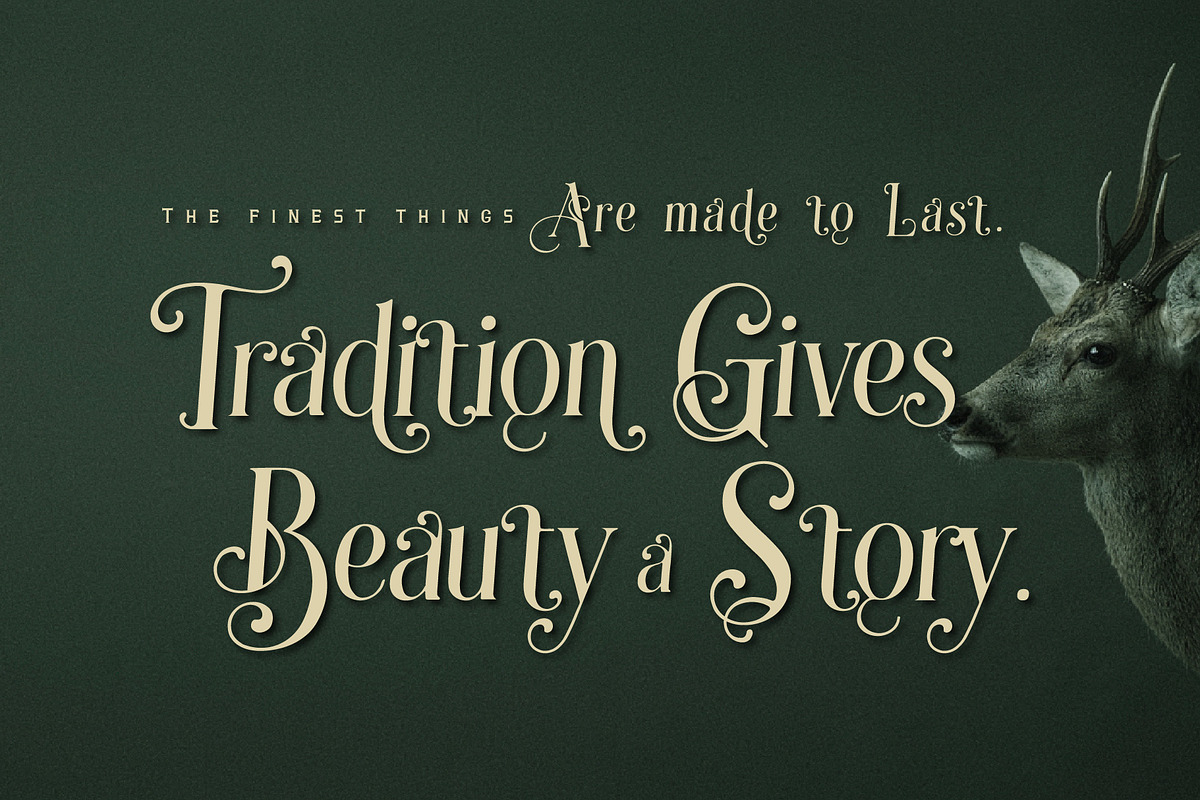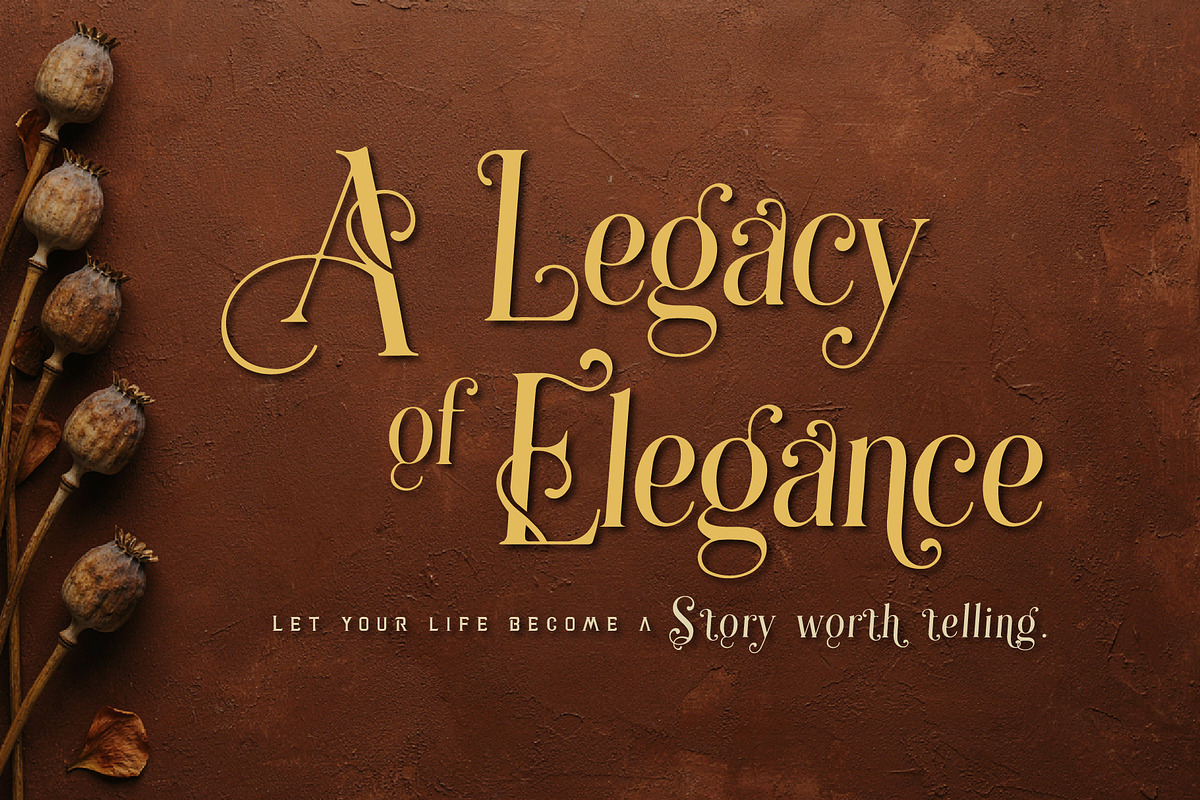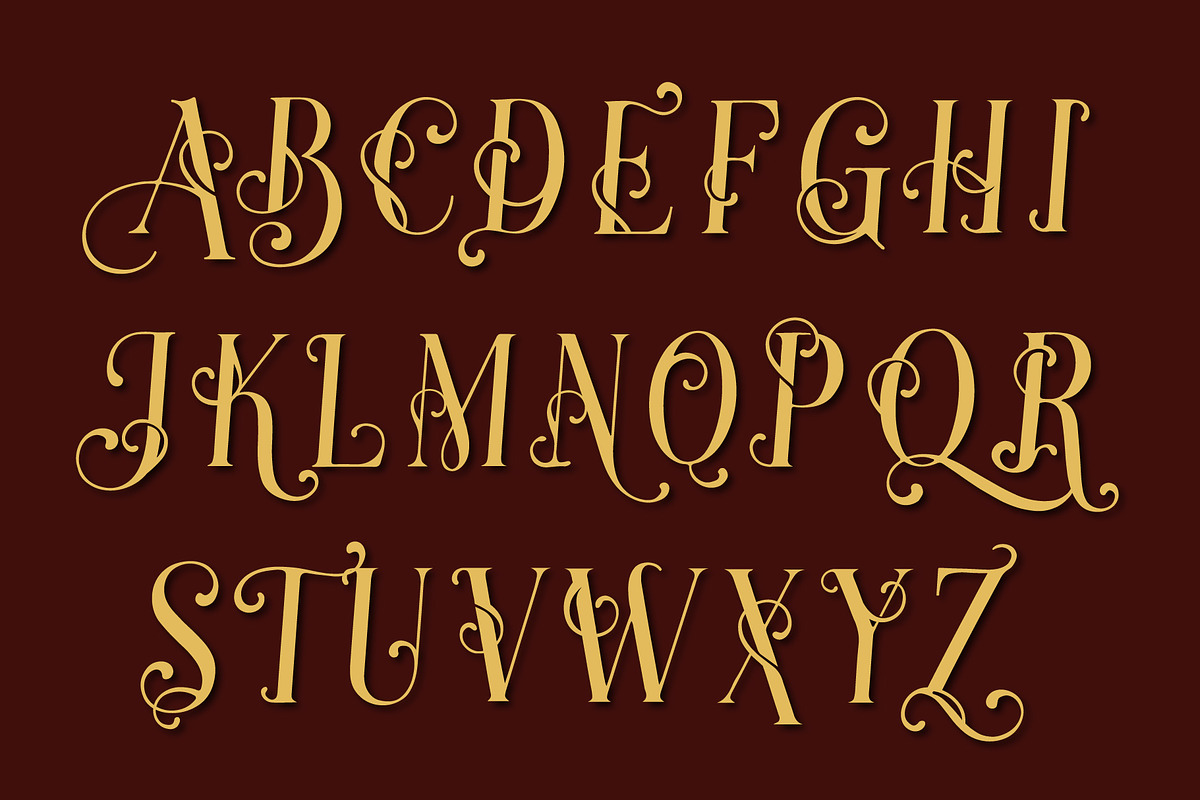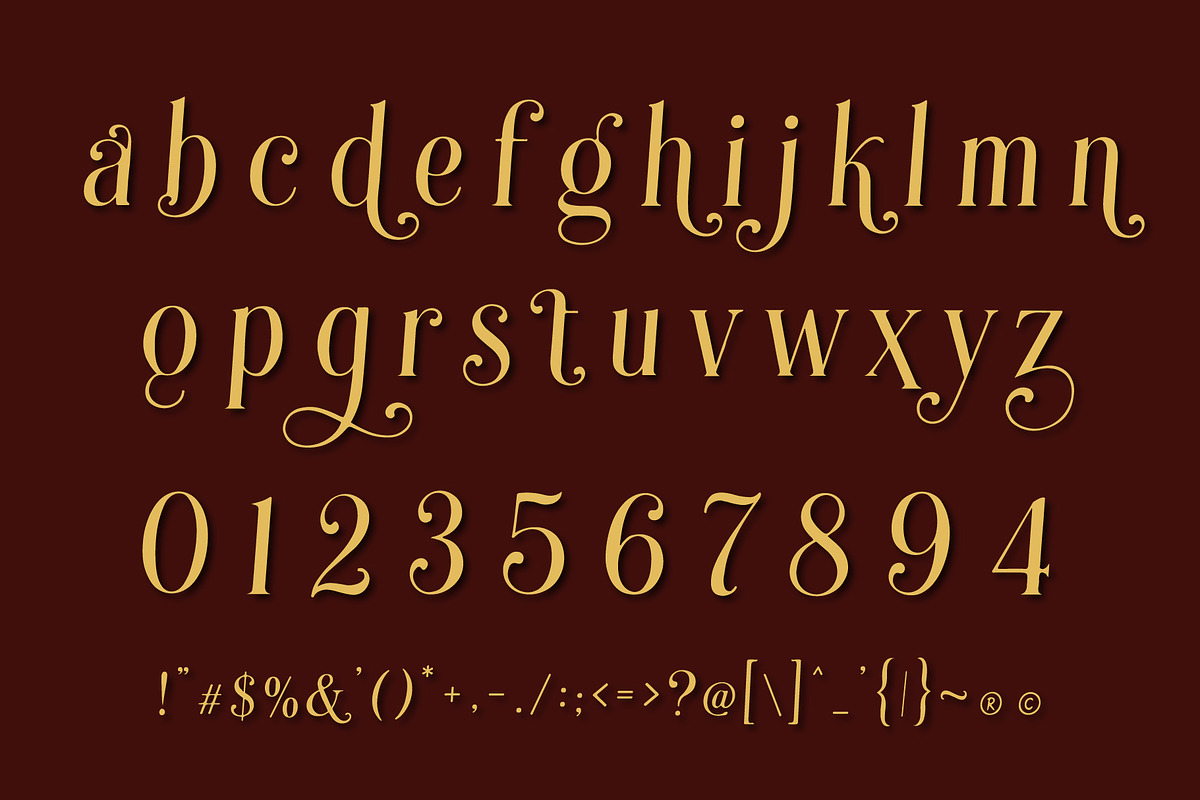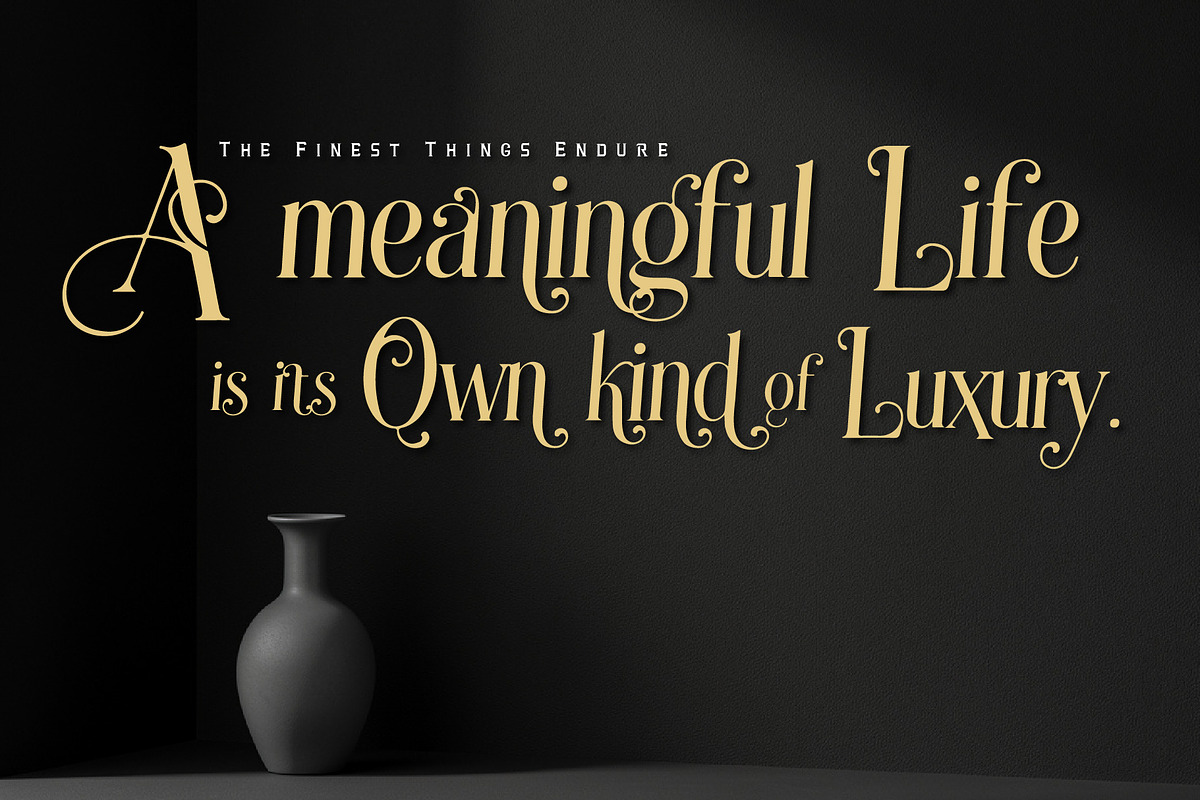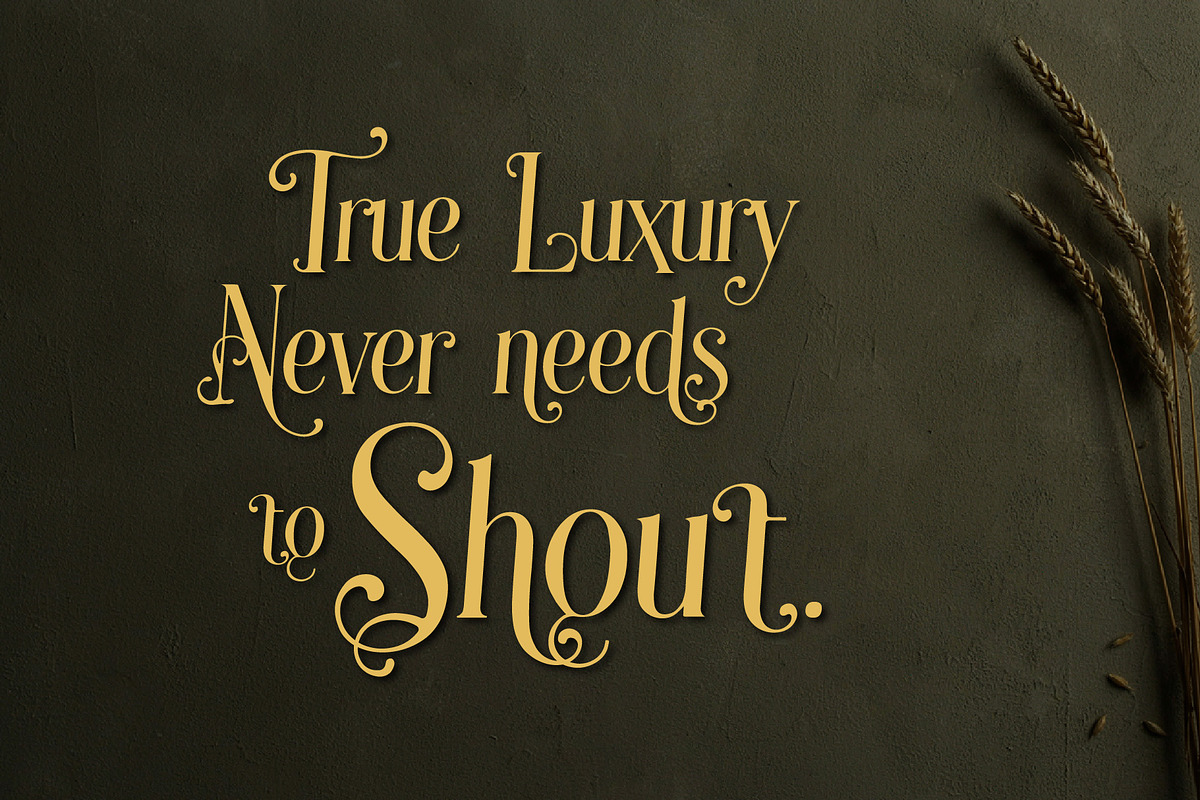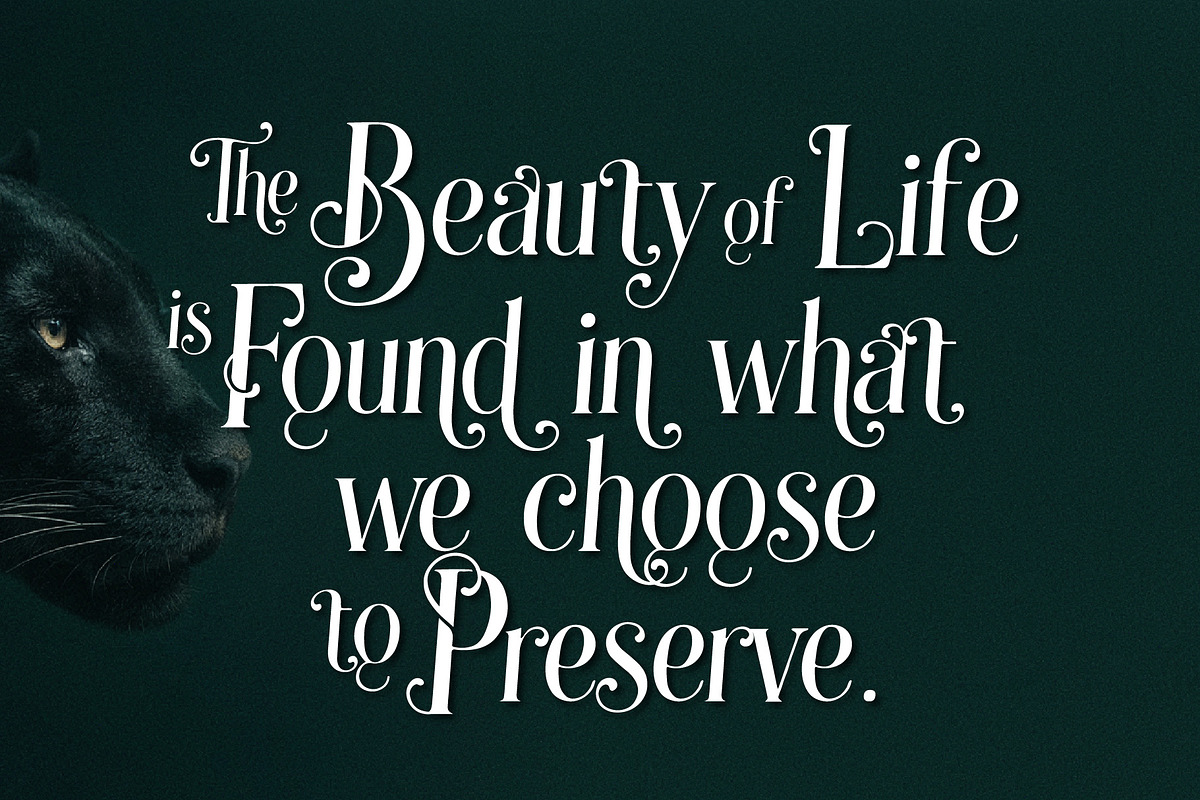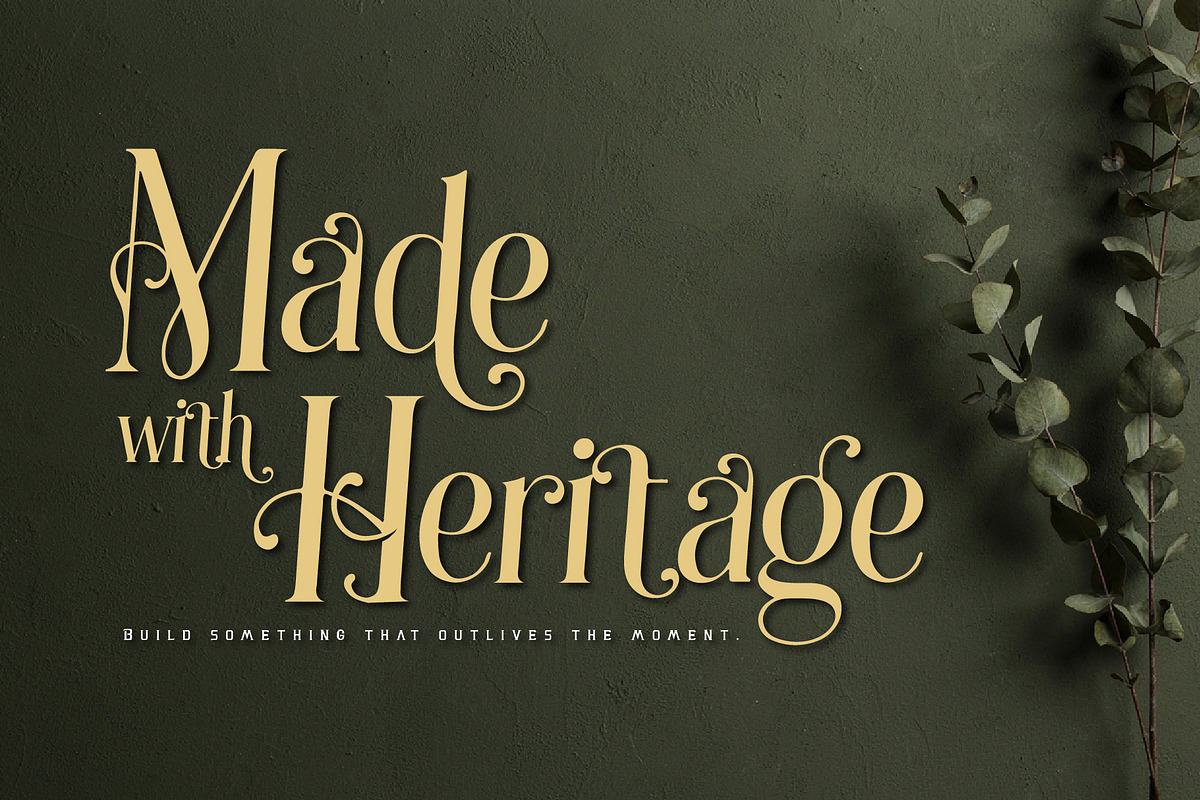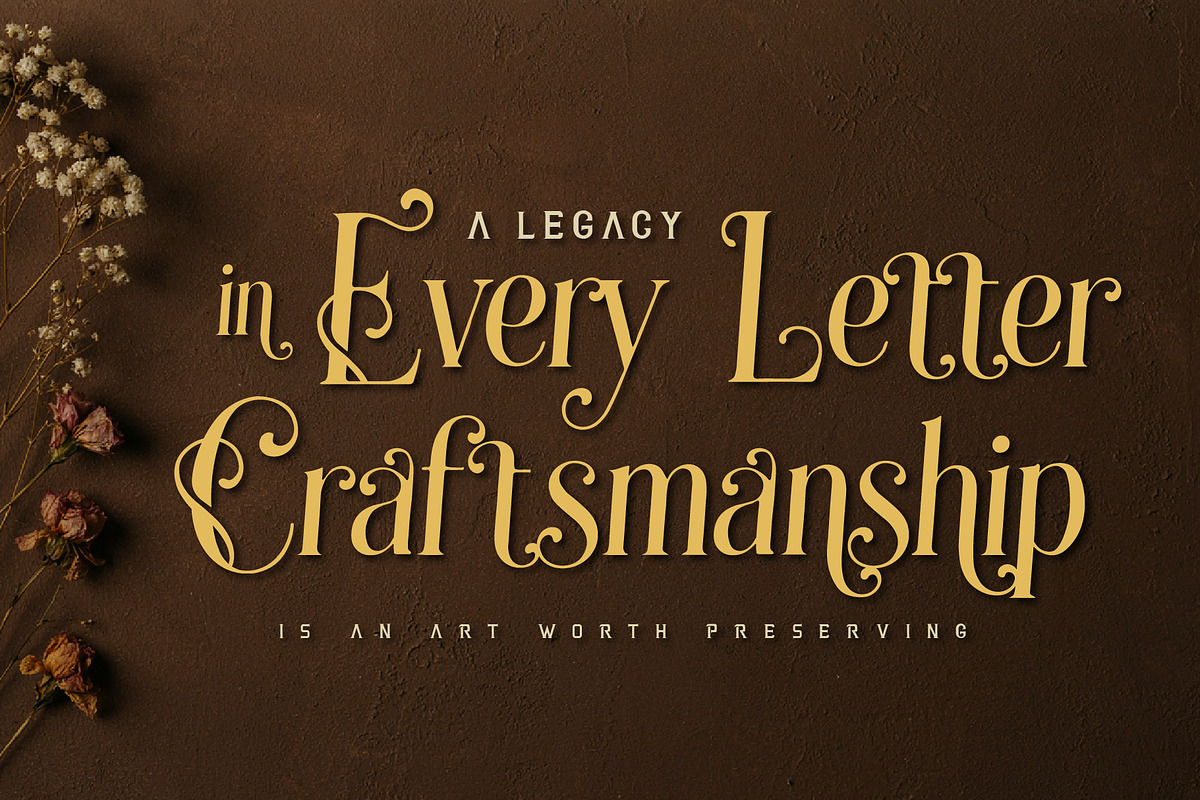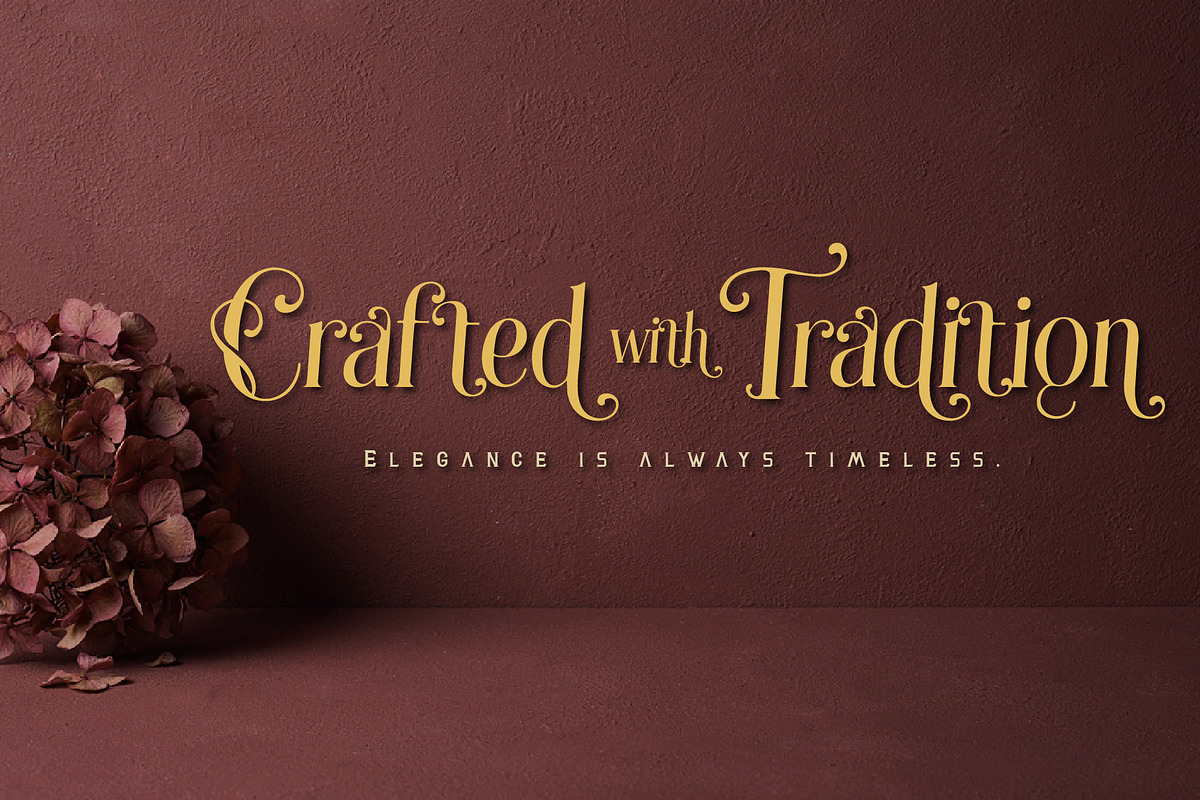
Grandeu Bearzens - Vintage Serif
Grandeu Bearzens is a refined vintage serif inspired by timeless European heritage, classic craftsmanship, and the quiet elegance of a bygone era. Its strong yet graceful letterforms bring a sophisticated, premium character to every design.
With an artisanal personality and a beautifully classic presence, Grandeu Bearzens is made for brands that value tradition, quality, and enduring style. Perfect for luxury branding, fashion, heritage products, packaging, editorial design, restaurants, hotels, cafés, wine labels, invitations, posters, and premium artisan projects.
A timeless typeface for designs that want to feel elegant, established, authentic, luxurious, and crafted to last.